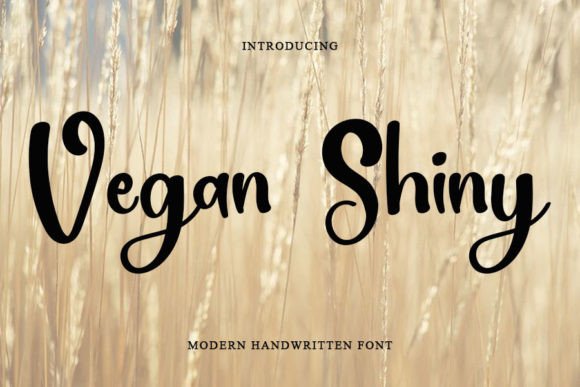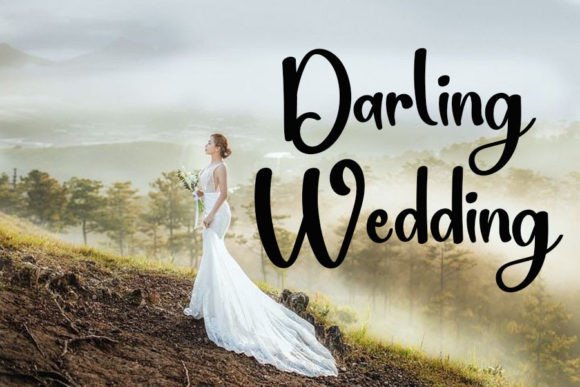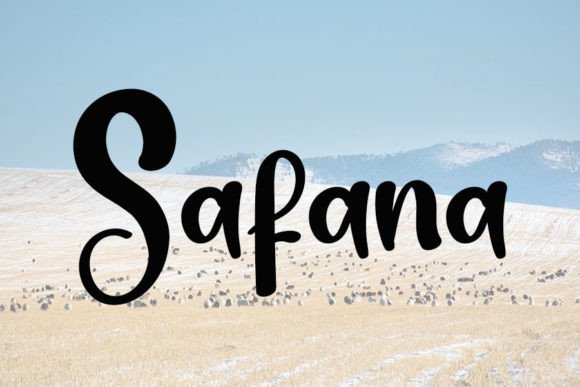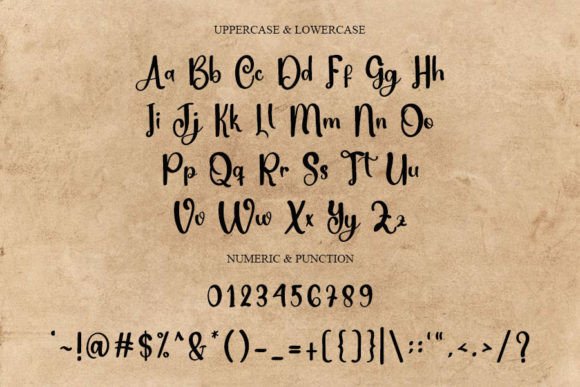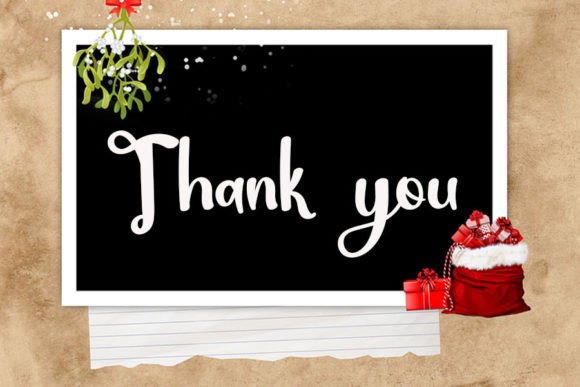
Vegan Shiny
Vegan Shiny is a magical handwritten font carefully created with a touch of elegance. Clean and a little bit quirky, this font is the perfect fit for all of your logos, branding, social media, and crafty DIY projects.